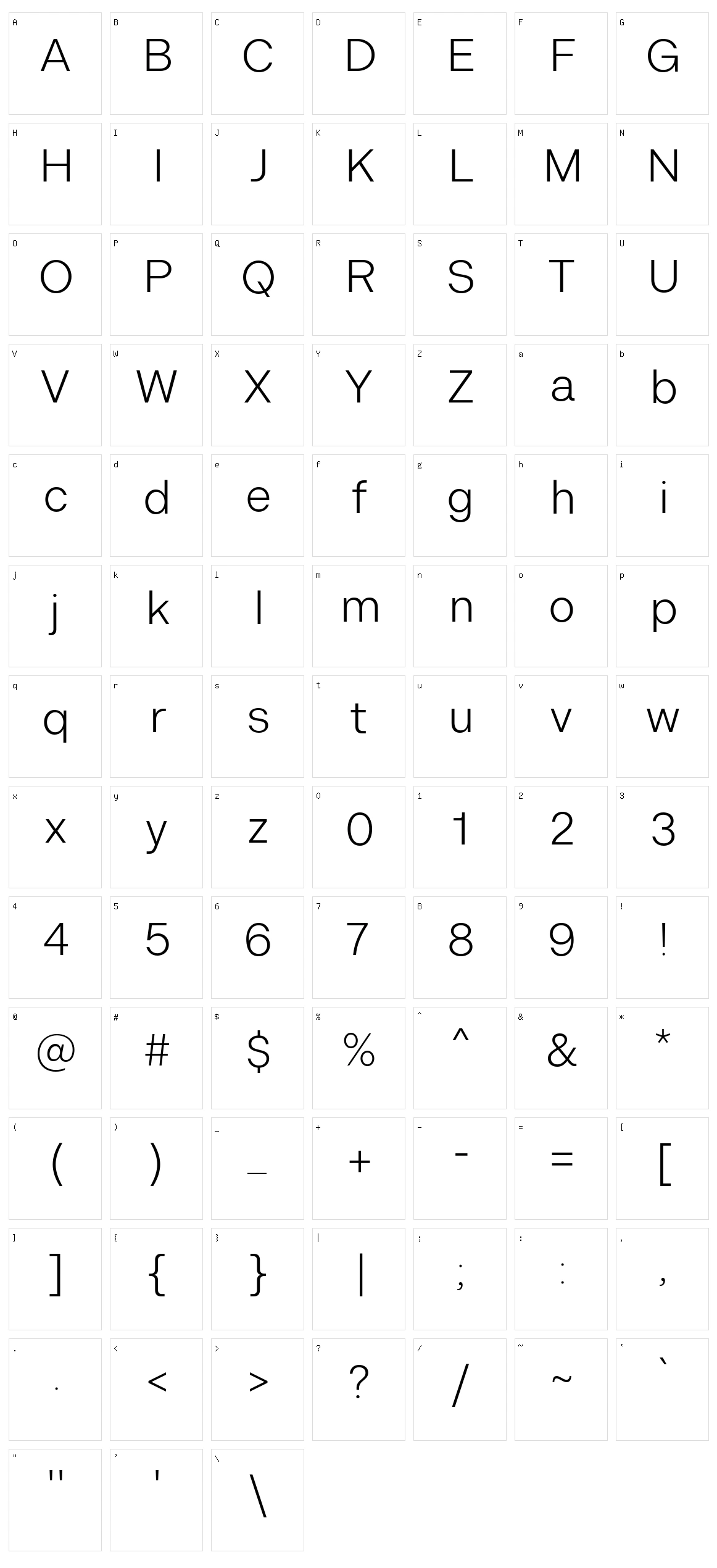
The free font Kiwari is carefully designed by Kiwari Kolektiv, showcasing a thoughtful balance of creativity and usability and falls under the Sans serif font style. When you download the ZIP file, it contains only 36.05 KB of font files, making it lightweight and quick to download. Please review the license details below to understand permitted usage and distribution rights. If license information is not available, we recommend using this font for personal projects only or contacting the author directly for commercial usage permissions.